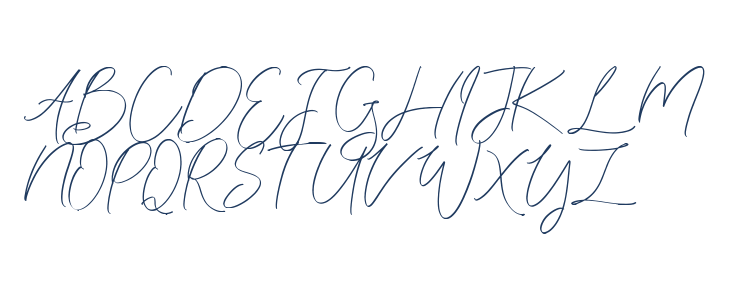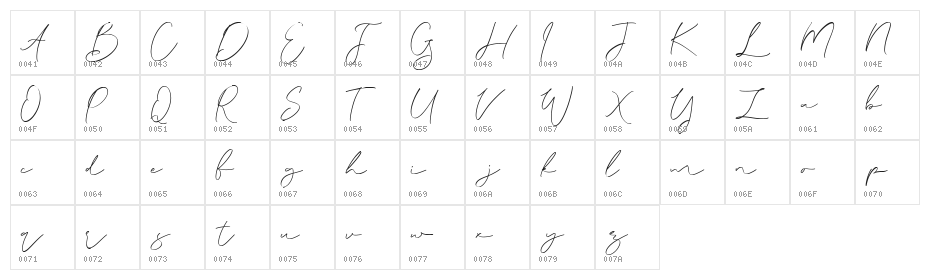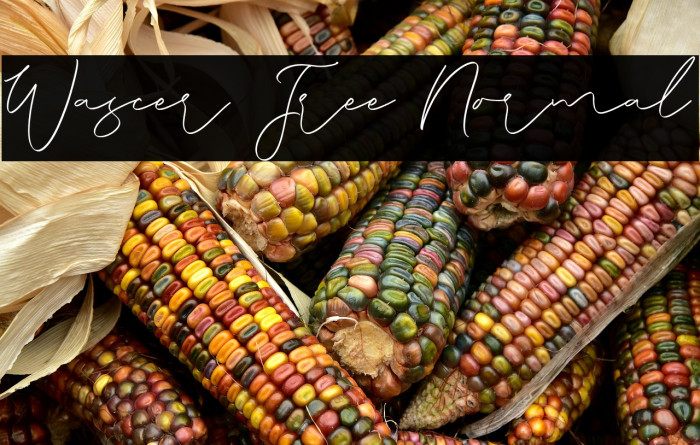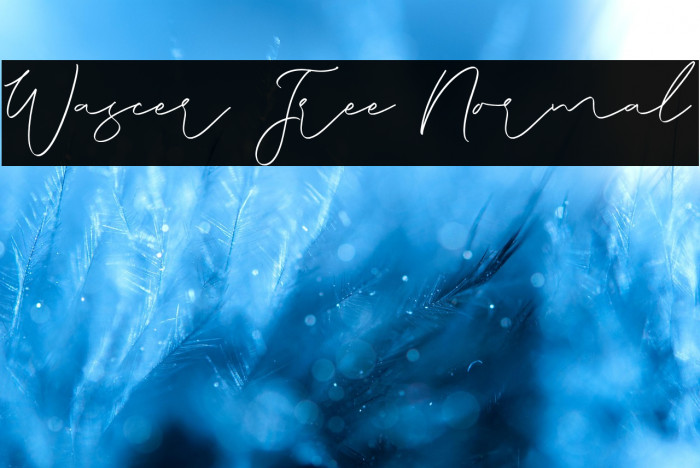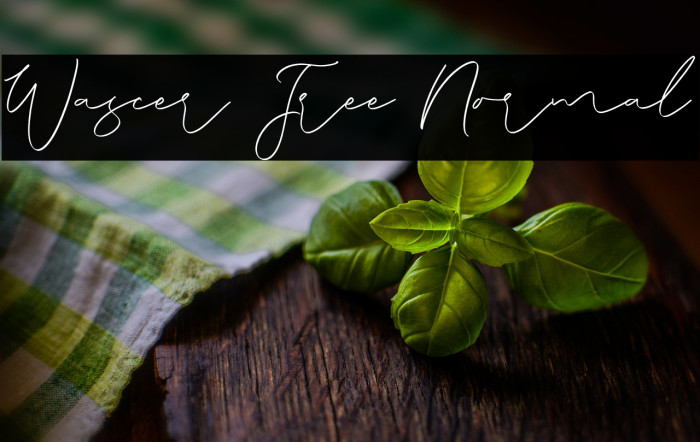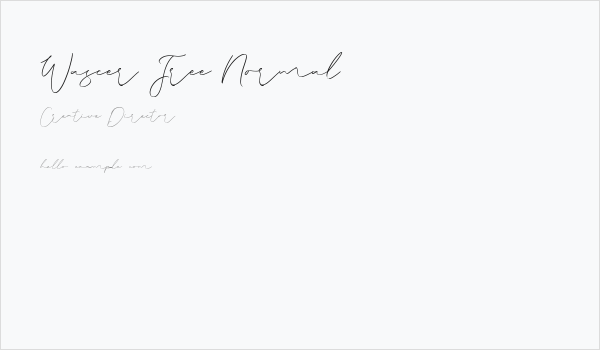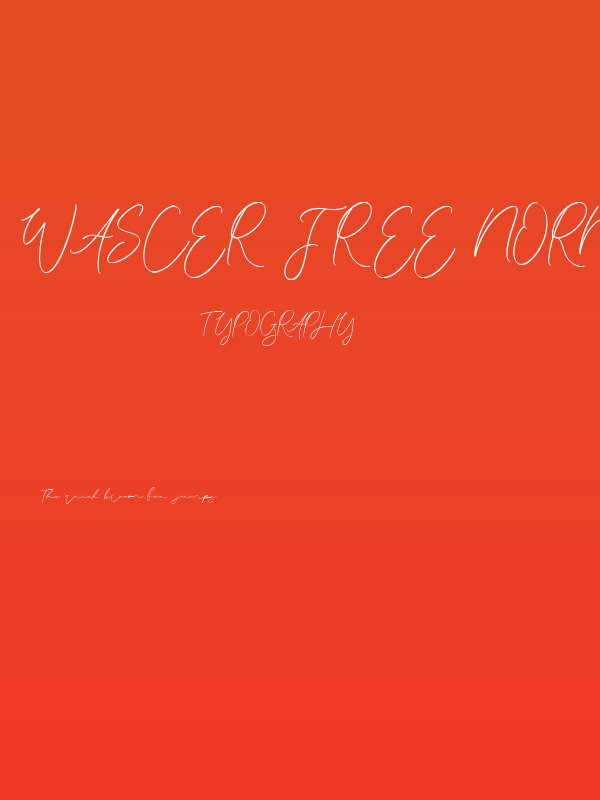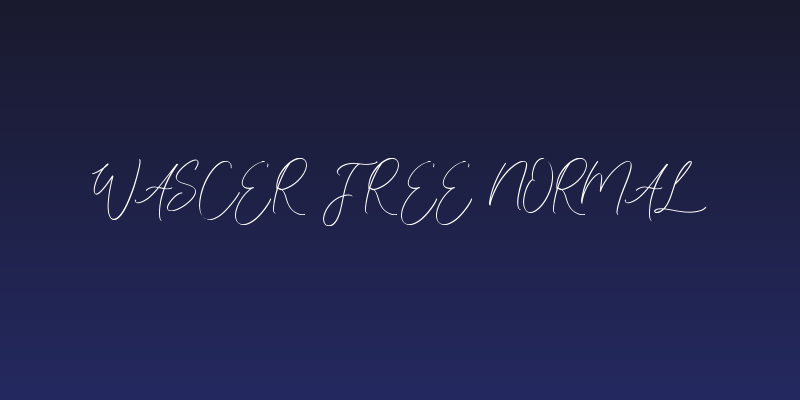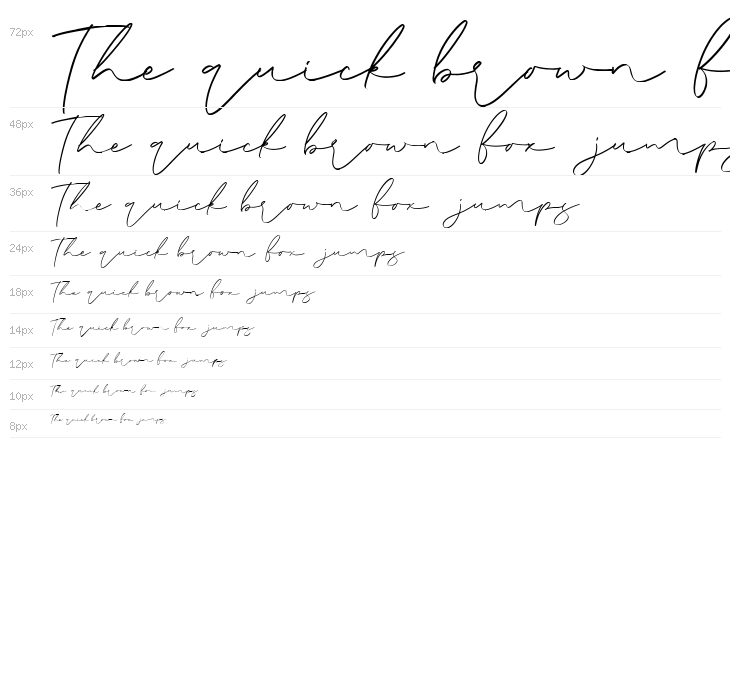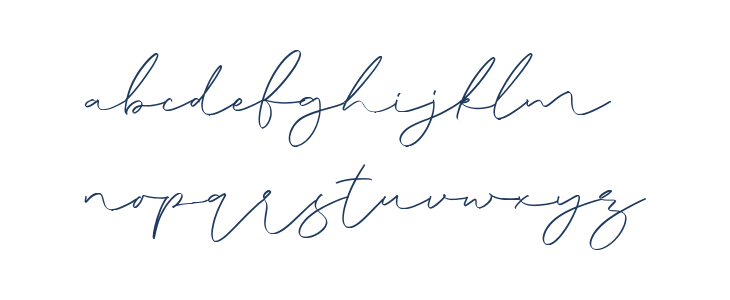
Wascer Free Normal Font
Wascer Free Normal Description
A loose, flowing handwritten script with thin, continuous strokes and a casual, organic feel. The characters are slightly irregular, mimicking natural handwriting, and feature high ascenders and long descenders.
| Overall Style | Casual, Organic, Decorative |
| Use Case | Logos, Headlines, Short text, Decorative elements |
| Proposed Projects | Invitations, greeting cards, personal branding, quotes, social media graphics. |